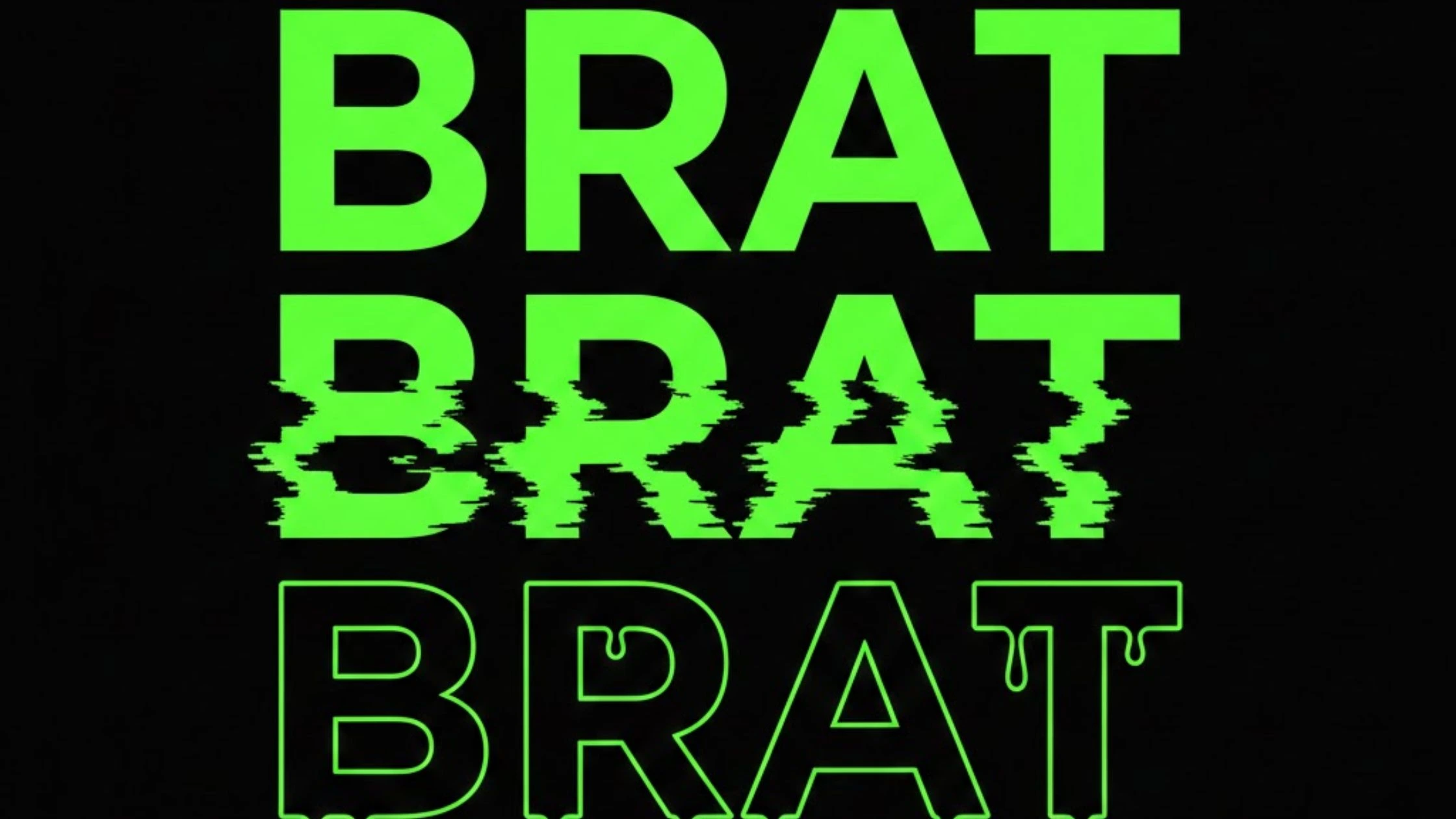
Brat Font Copy and Paste – Stylish Brat Text Ready
Looking for instant brat font copy and paste text? You’re in the right place.
This page provides ready-to-use brat style text that you can copy and paste directly into Instagram bios, TikTok captions, memes, wallpapers, album covers, or profile names — no design skills required.
Unlike general stylish text tools, brat typography focuses on bold, clean, high-impact lettering inspired by modern pop aesthetics and strong visual identity.
Copy and Paste Brat Font Styles
Below are ready-to-use brat copy paste text variations. Simply copy your preferred style and use it anywhere.
Bold Brat Font Text
BRAT ENERGY
BRAT MODE
BRAT GIRL
BRAT AESTHETIC
BRAT VIBES
Minimal Brat Style Copy Paste
B R A T
BR∆T
B R A T ERA
BRAT™
BRAT.
Aesthetic Brat Font Copy
★ BRAT ★
BRAT 2025
BRAT CULTURE
BRAT ICON
BRAT ATTITUDE
Brat Letters Copy Paste Variations
𝐁𝐑𝐀𝐓
𝗕𝗥𝗔𝗧
𝘉𝘙𝘈𝘛
𝙱𝚁𝙰𝚃
BRAT
These brat letters copy paste formats work across most social media platforms and messaging apps.
What Makes Brat Text Style Different?
Brat style copy paste text is different from decorative or cursive fonts.
It focuses on:
- Bold uppercase presence
- Clean structure
- Strong spacing
- Visual impact over decoration
- Minimal but expressive design
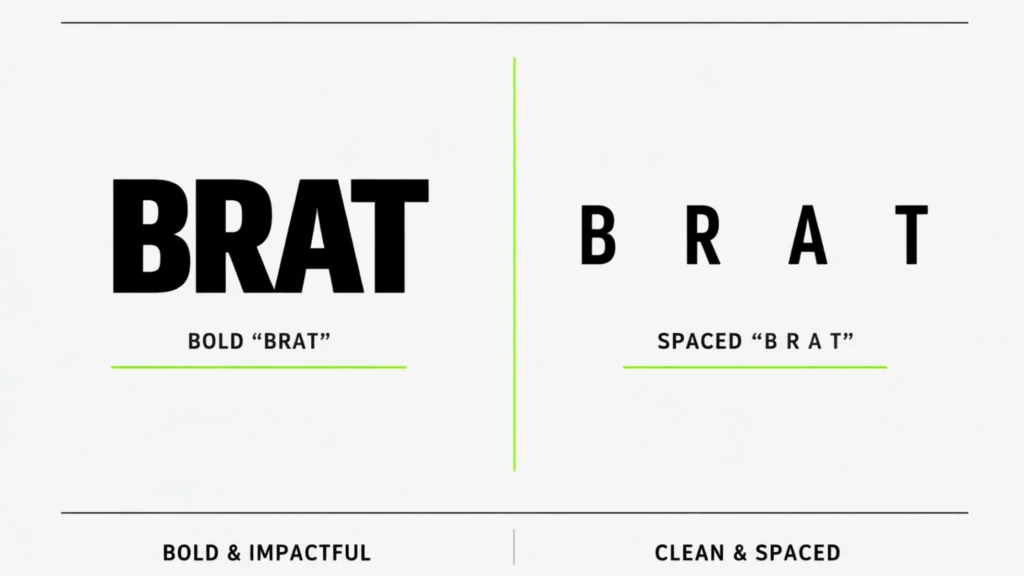
Where to Use Brat Copy Paste Text
Brat typography works best in:
- Instagram bios
- TikTok usernames
- Meme captions
- Album cover titles
- Digital wallpapers
- Profile display names
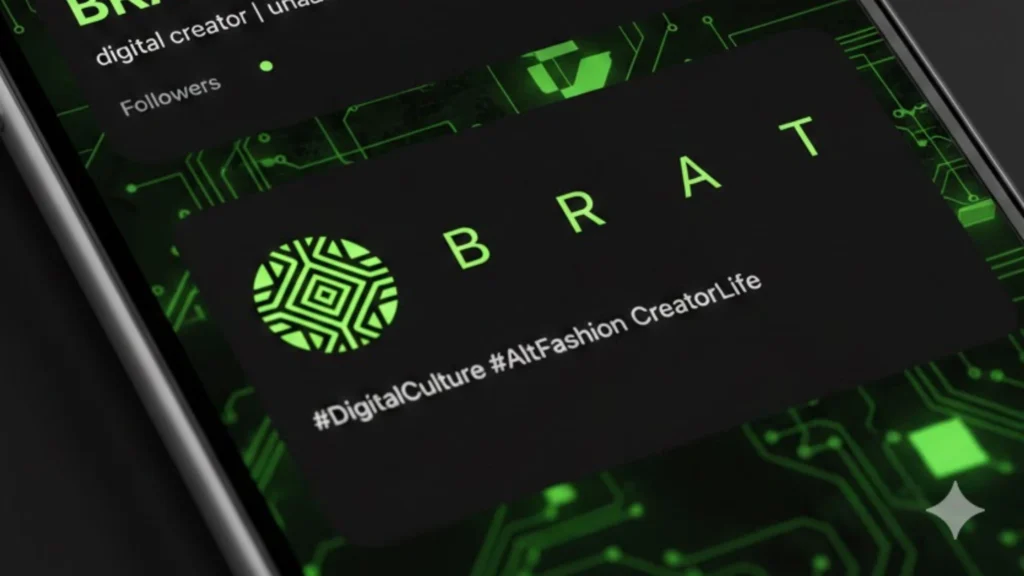
Brat Typography and Visual Identity
It follows core typography fundamentals such as spacing, hierarchy, and contrast to create bold visual impact.
Spacing, capitalization, and contrast play a major role in how brat aesthetic letters appear visually powerful even without complex design elements.
How to Customize Your Own Brat Text Style
If the ready-made styles are not enough, you can create custom brat copy paste text by:
- Using all caps
- Adding spacing between letters
- Combining symbols with bold text
- Applying strong contrast backgrounds
- Keeping layout minimal
Frequently Asked Questions
What is brat font copy and paste?
It refers to ready-made brat style text that can be instantly copied and used on social media or design projects.
Is brat text different from stylish fonts?
Yes. Brat typography emphasizes bold minimalism and visual attitude rather than decorative scripts.
Can I use brat letters on Instagram?
Yes. Most brat letters copy paste formats are compatible with Instagram, TikTok, Twitter, and messaging apps.
Do I need a generator to create brat text?
Final Thoughts
Brat typography is about bold presence and modern aesthetic confidence. With these ready-to-use brat font copy and paste styles, you can instantly upgrade your captions, bios, memes, and designs.